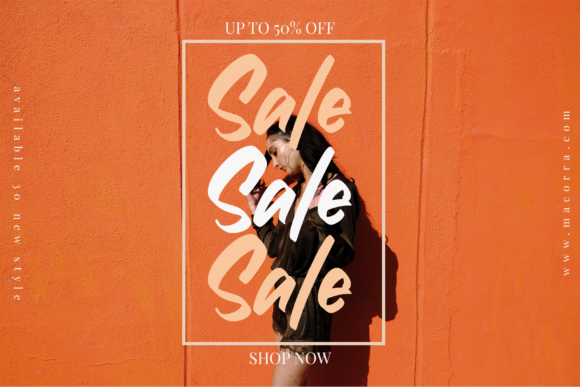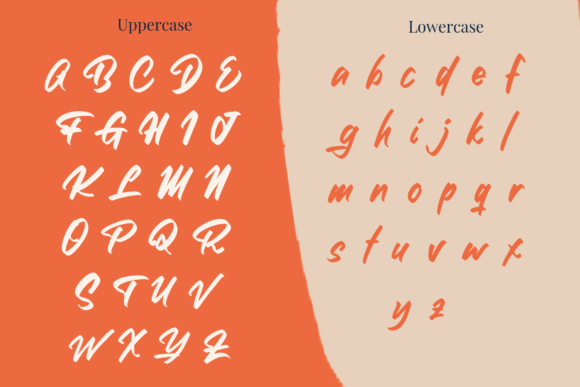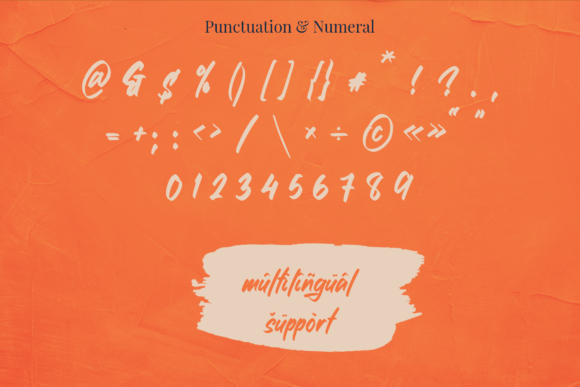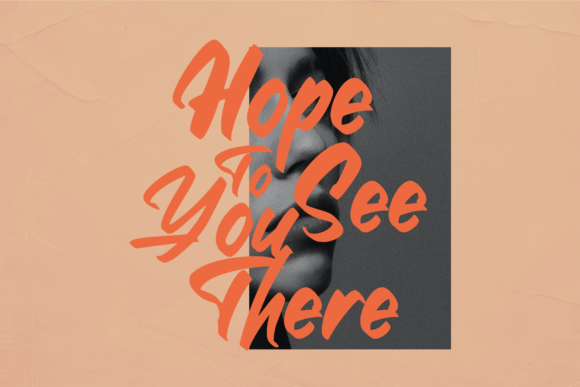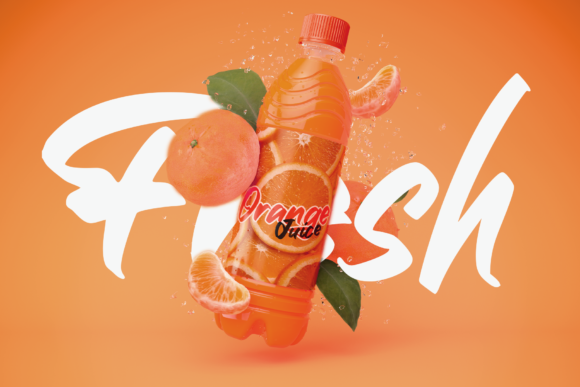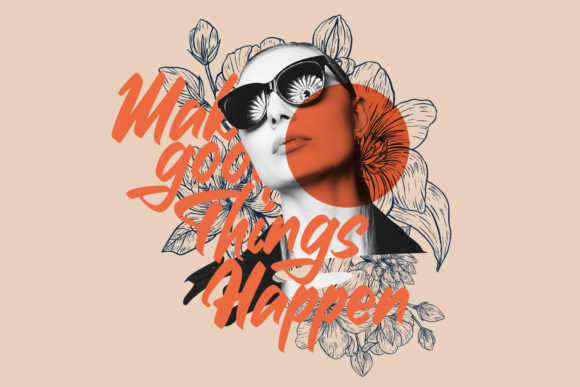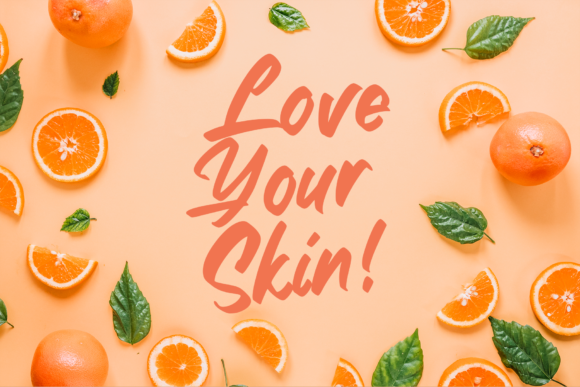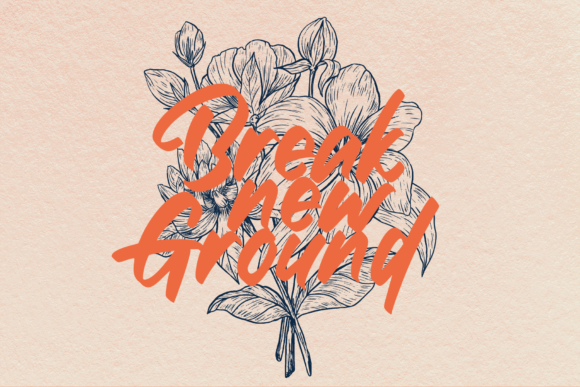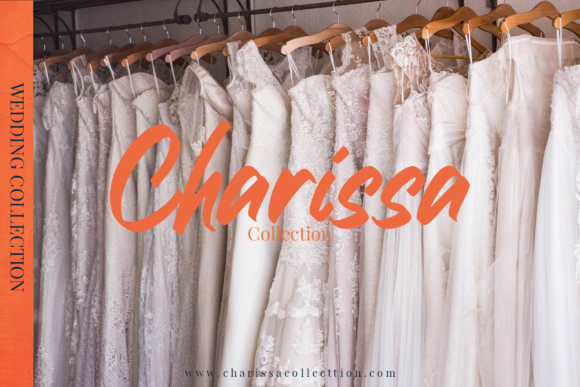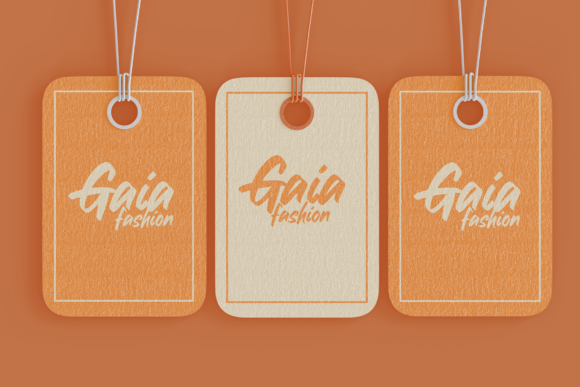
Sugar Djava Font
About Sugar Djava Font
Sugar Djava is a bold and joyful script font that brings a delightful touch to any design project. Its unique and playful style makes it a great choice for adding a fun and lively vibe to your creative ideas. Here are some ways you can use Sugar Djava to make your designs stand out:
1. Logo Design: Create vibrant and eye-catching logos using Sugar Djava to make your brand identity memorable and distinctive.
2. Branding Materials: Use Sugar Djava on business cards, letterheads, and packaging to infuse your brand with a joyful and playful personality.
3. Social Media Graphics: Design engaging and cheerful social media graphics with Sugar Djava to attract attention and increase audience engagement.
4. Greeting Cards: Craft fun and festive greeting cards for various occasions, such as birthdays, holidays, and celebrations, using Sugar Djava to add a touch of joy.
5. Posters and Flyers: Make your event posters and flyers stand out with Sugar Djava’s bold and energetic lettering, drawing attention to your event or promotion.
6. Quotes and Typography Art: Create lively and colorful typography art featuring inspirational quotes and phrases using Sugar Djava.
7. Product Packaging: Add a joyful and playful element to your product packaging with Sugar Djava to appeal to customers and stand out on store shelves.
8. Website Headers: Use Sugar Djava in website headers and banners to create a cheerful and inviting first impression for visitors.
9. Party Invitations: Design lively and captivating party invitations with Sugar Djava to set the tone for a fun and exciting event.
10. Children’s Books: Incorporate Sugar Djava into illustrations and text for children’s books to make the reading experience delightful and engaging.
11. Apparel Design: Use Sugar Djava on t-shirts, hoodies, and other apparel items to create trendy and playful designs.
12. Event Signage: Make event signage pop with Sugar Djava’s bold lettering, ensuring that important information catches the eye.
13. Packaging Labels: Design colorful and attention-grabbing labels for your products using Sugar Djava to make them stand out on store shelves.
14. Art Prints: Create vibrant and cheerful art prints with Sugar Djava to decorate homes and spaces with a touch of joy.
15. Party Decorations: Customize party decorations, such as banners and bunting, with Sugar Djava to add a fun and celebratory element.
Sugar Djava’s bold script style and joyful vibe make it a versatile font that can enhance a wide range of design projects. Whether it’s for branding, social media, greeting cards, or any other creative idea, Sugar Djava will add a touch of happiness and excitement that stands out and captivates your audience. So, let the joy of Sugar Djava infuse your designs and make them truly stand out!